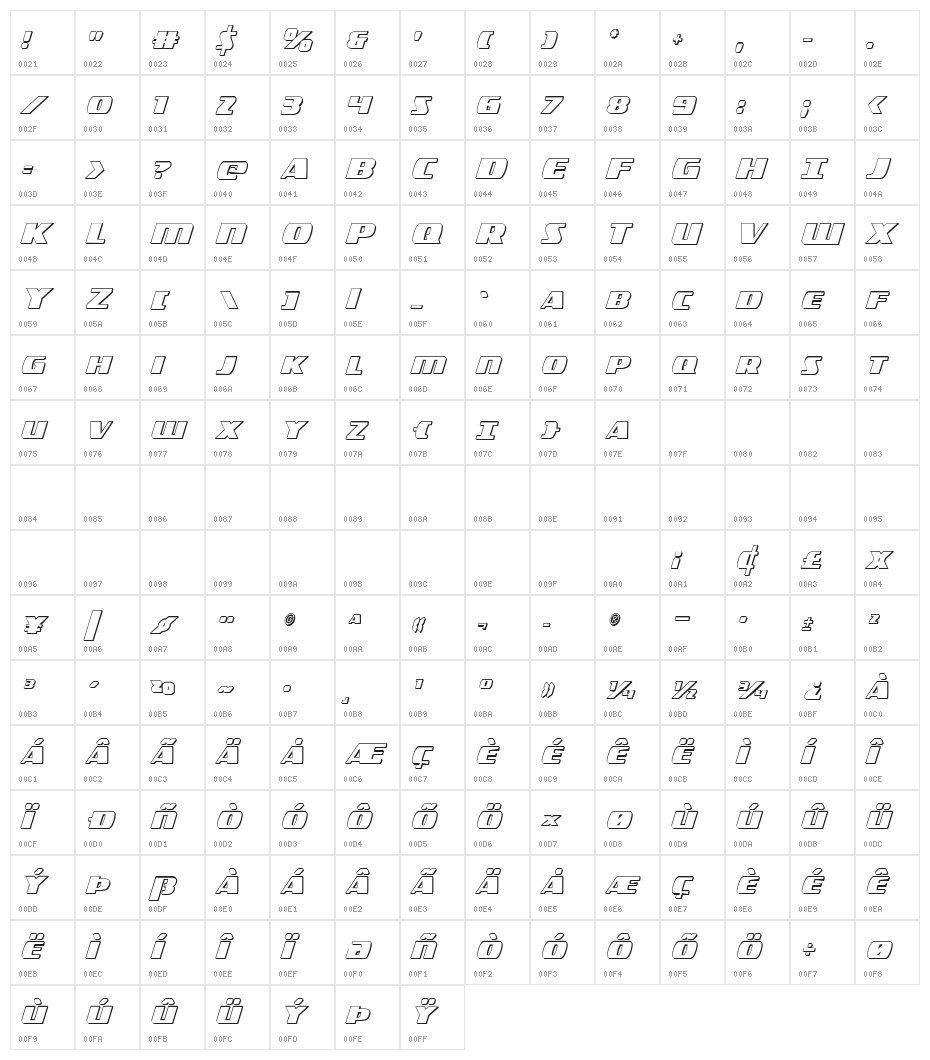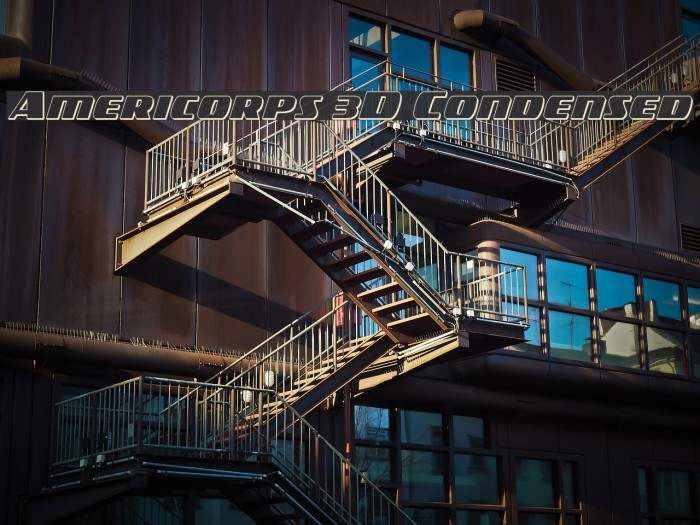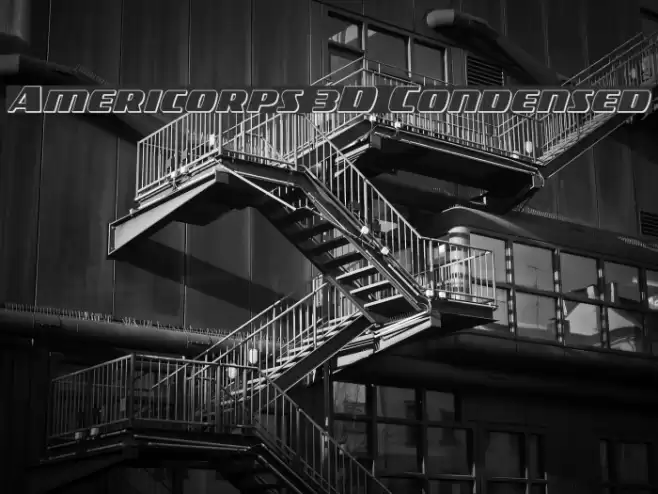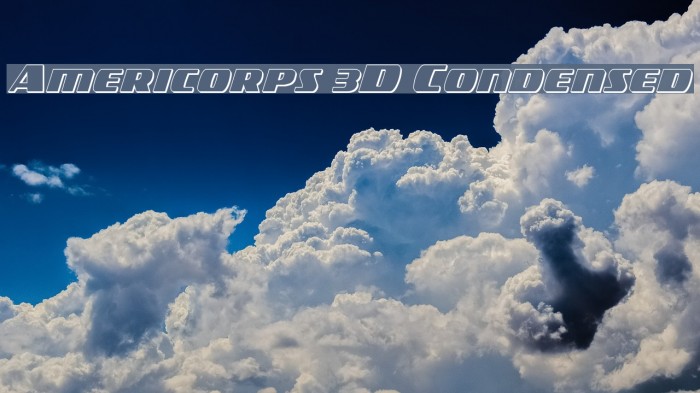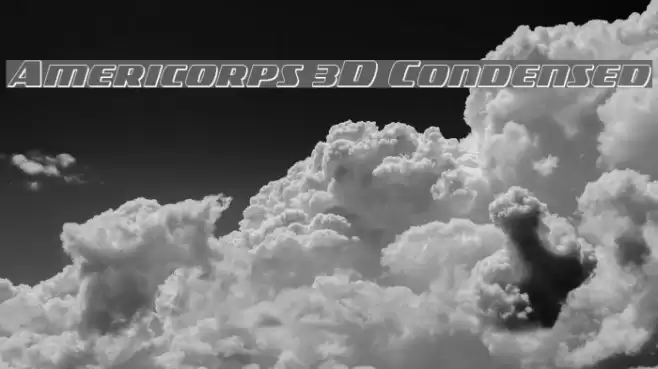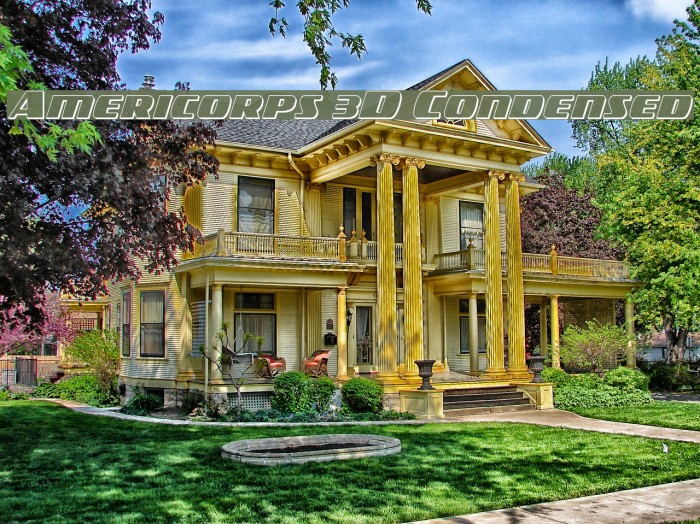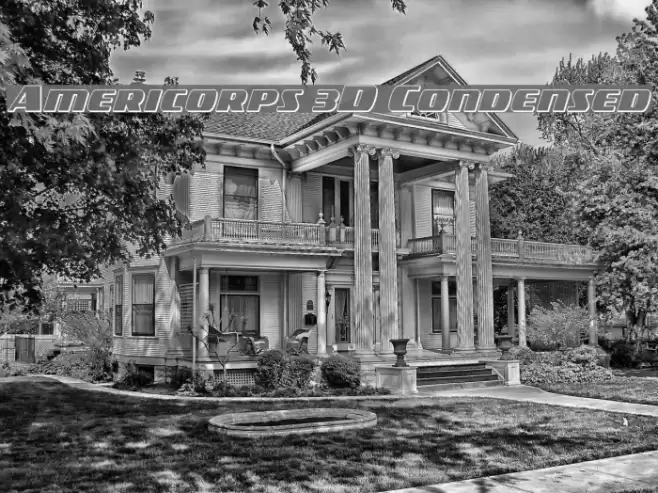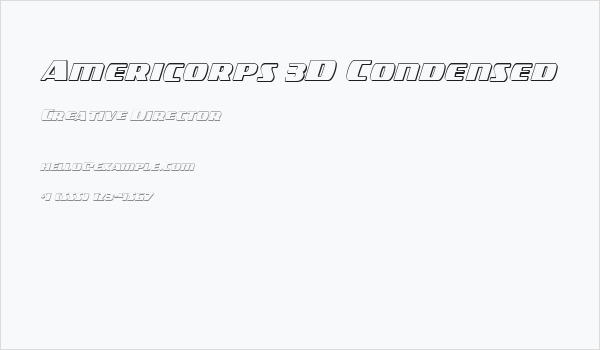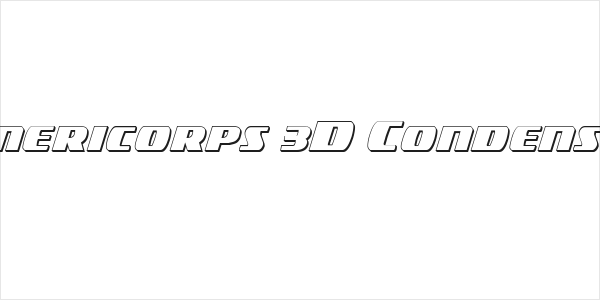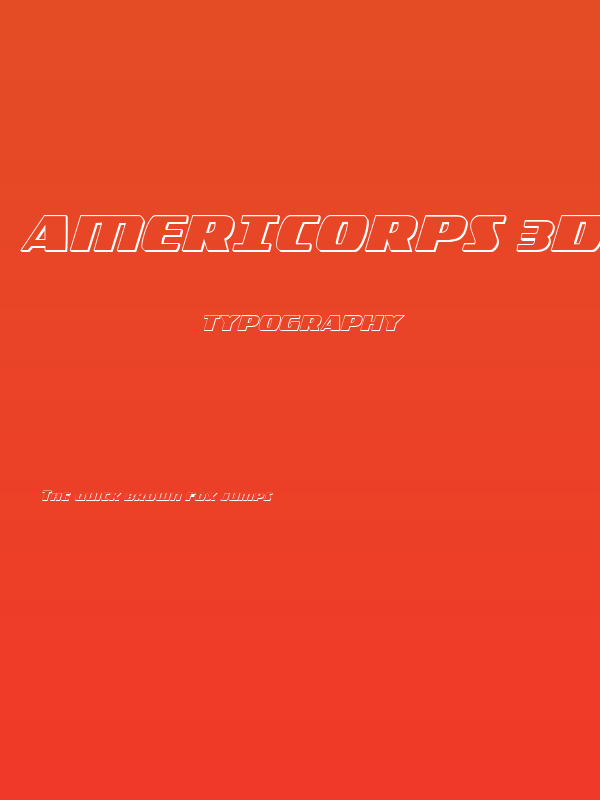
Americorps 3D Condensed Font
Americorps 3D Condensed Description
This font features a bold, three-dimensional style with a condensed structure, giving it a striking and impactful appearance. The characters are uppercase and have a geometric design with sharp angles and clean lines, creating a modern and futuristic look. The 3D effect is achieved through a shadow-like outline that adds depth and dimension to each letter. This font is ideal for making a statement and grabbing attention, suitable for headlines and display purposes. The spacing between characters is tight, enhancing its compact and cohesive appearance.
| Proposed Projects | Ideal for branding, posters, headlines, and any project requiring a bold, attention-grabbing typeface. |